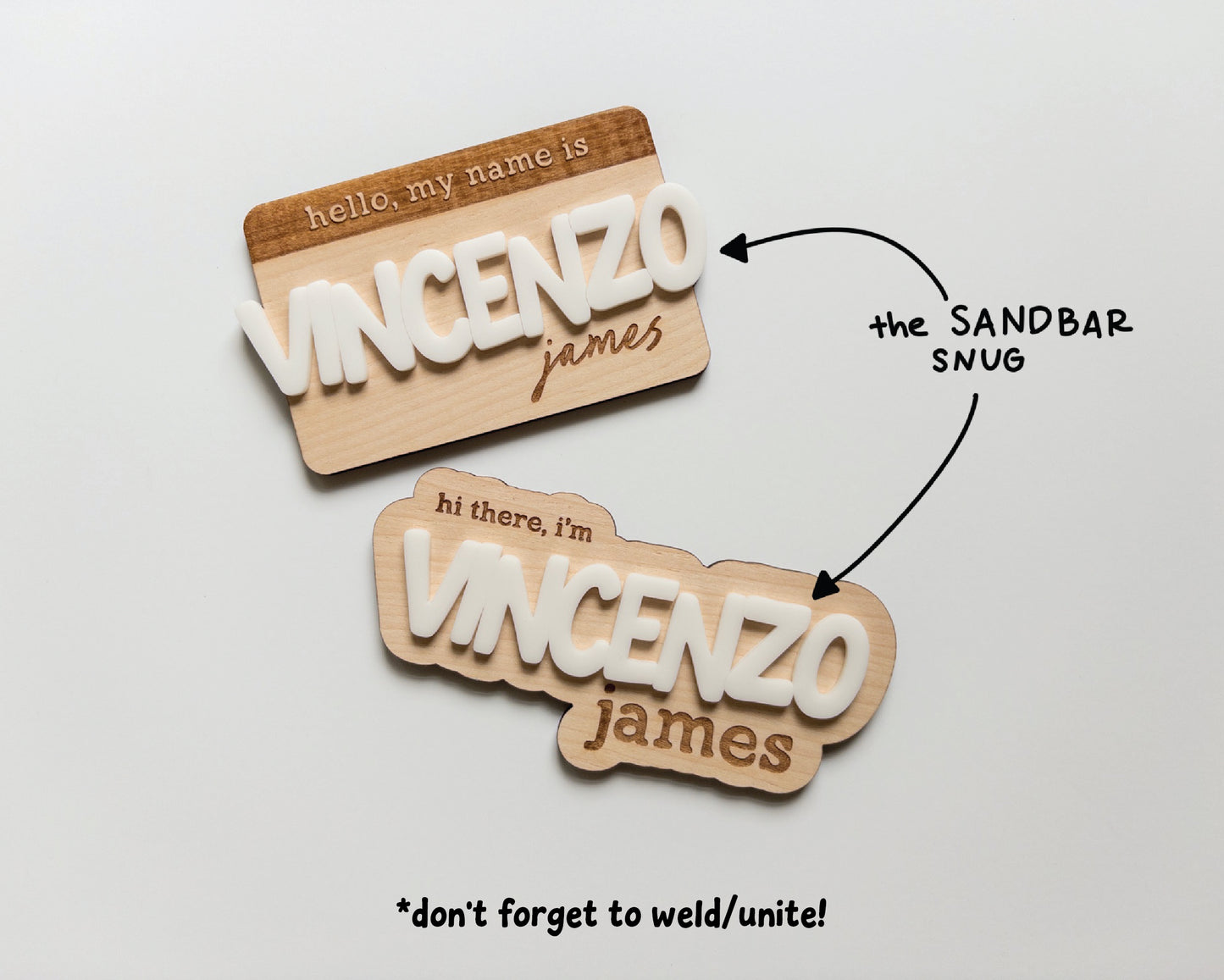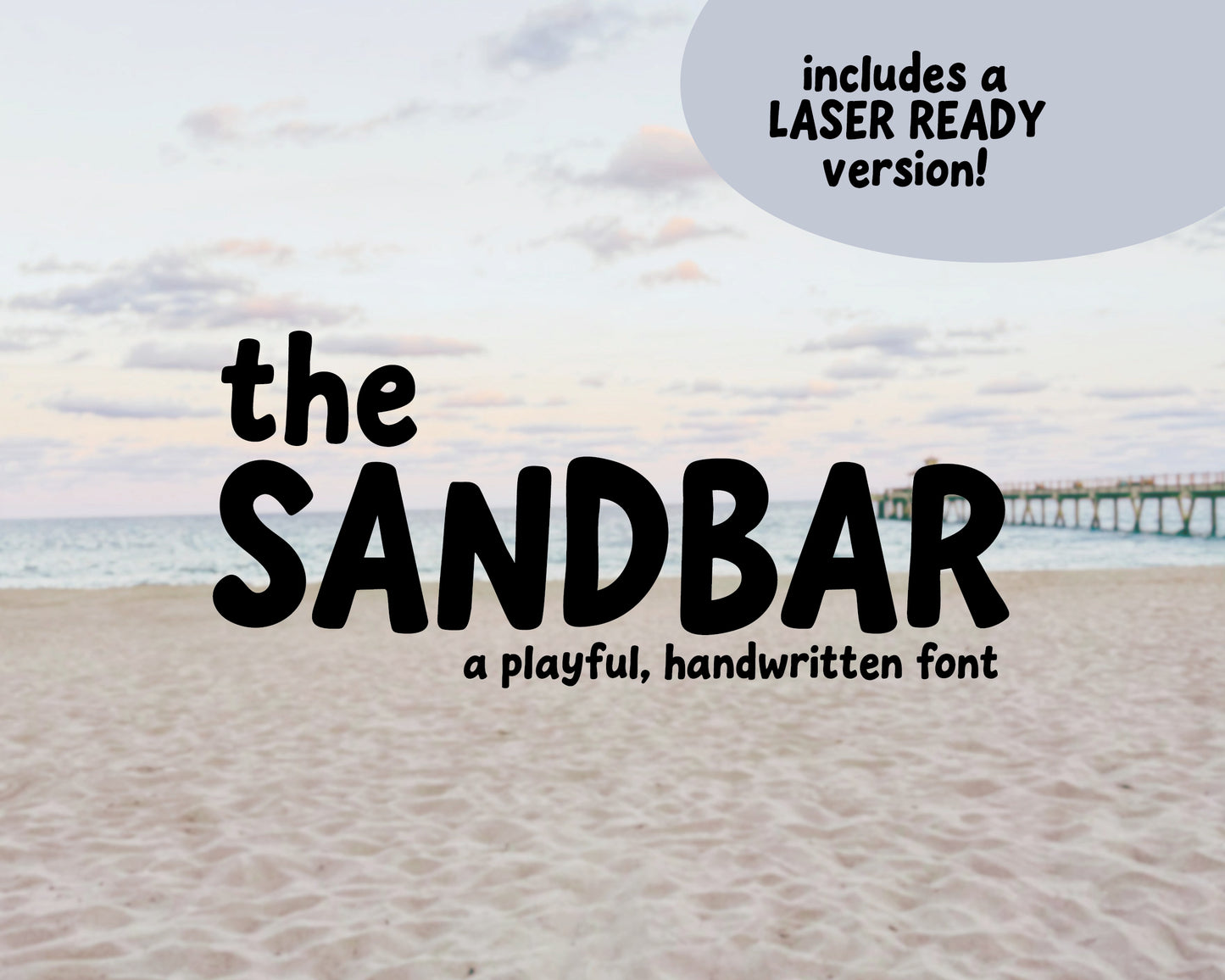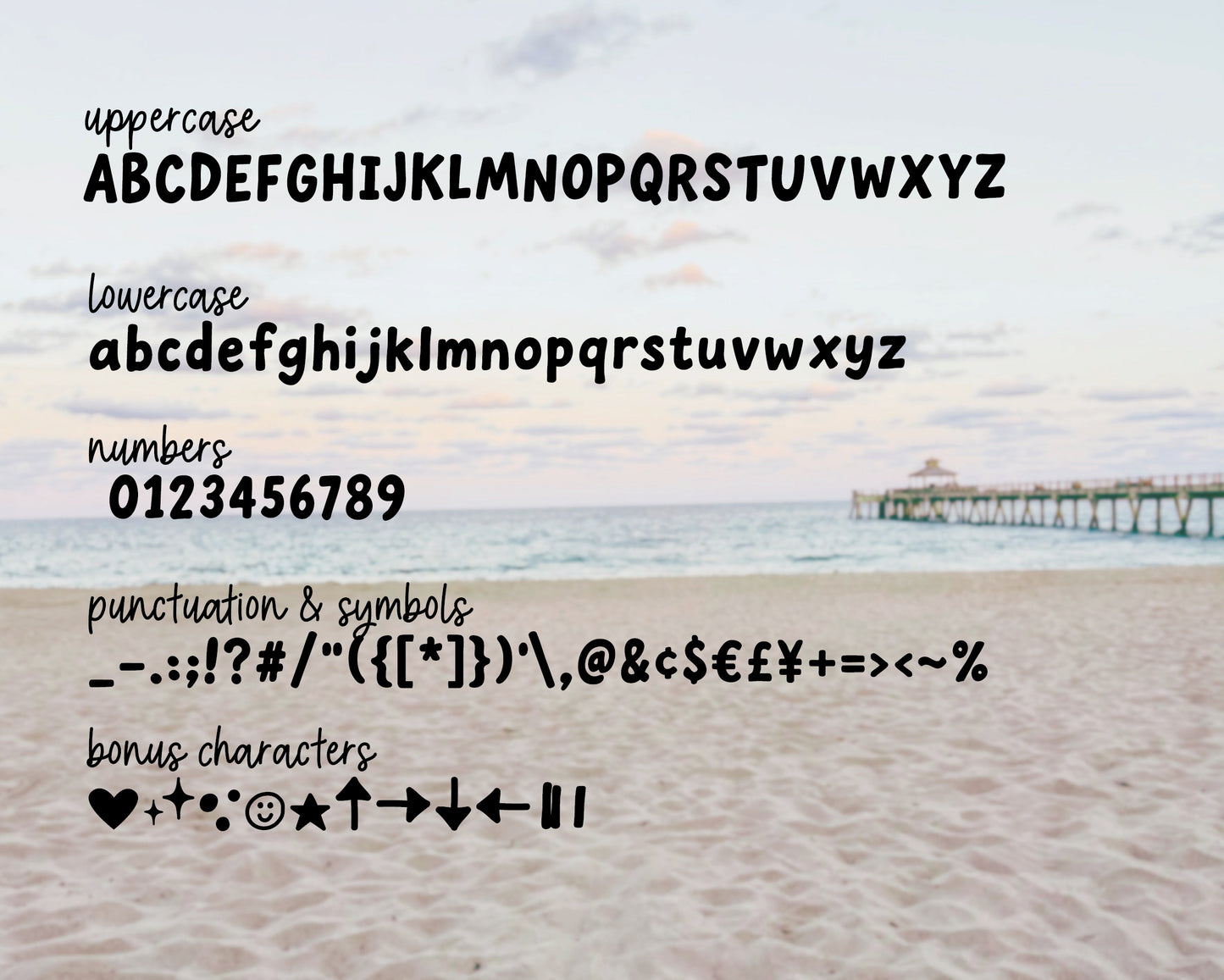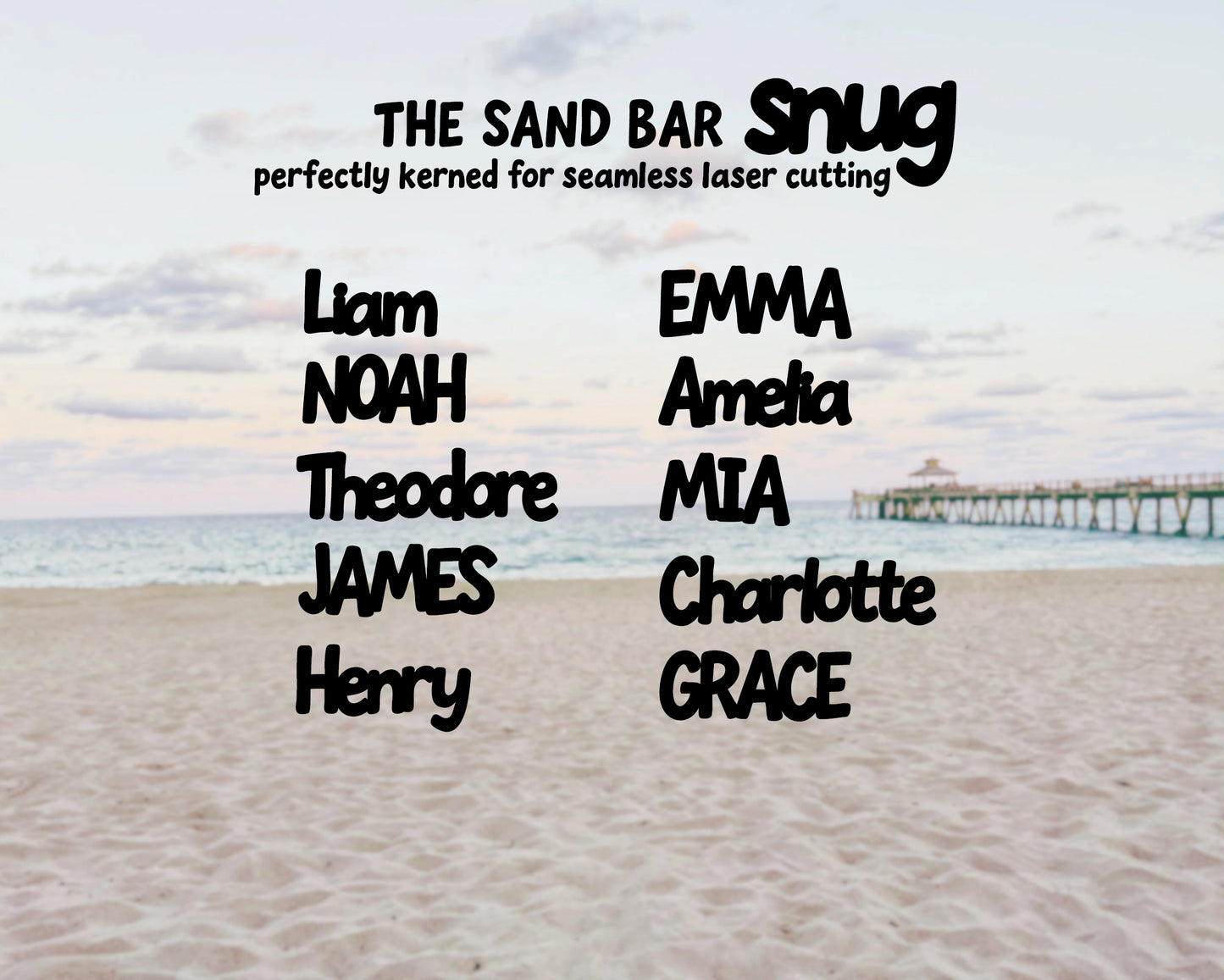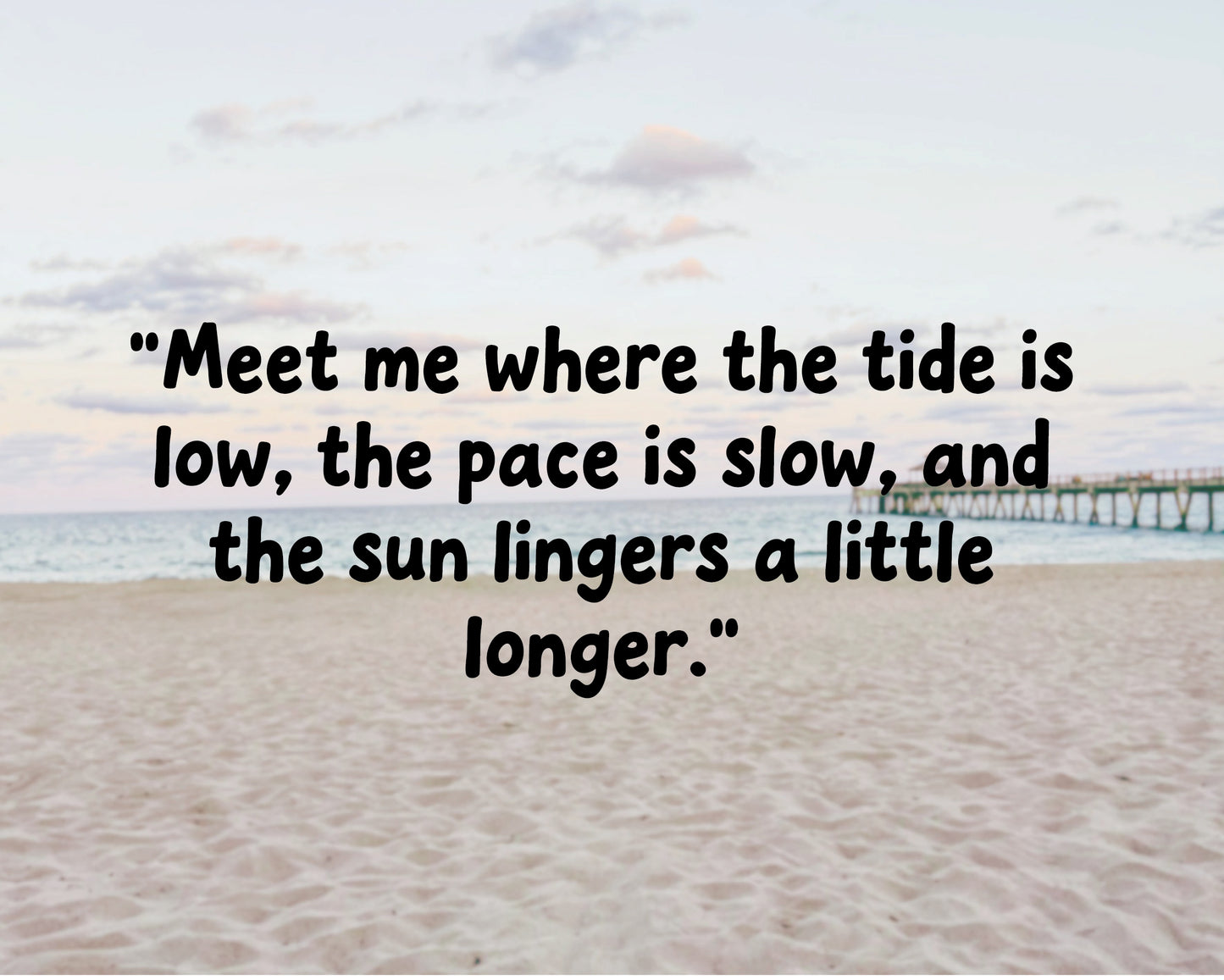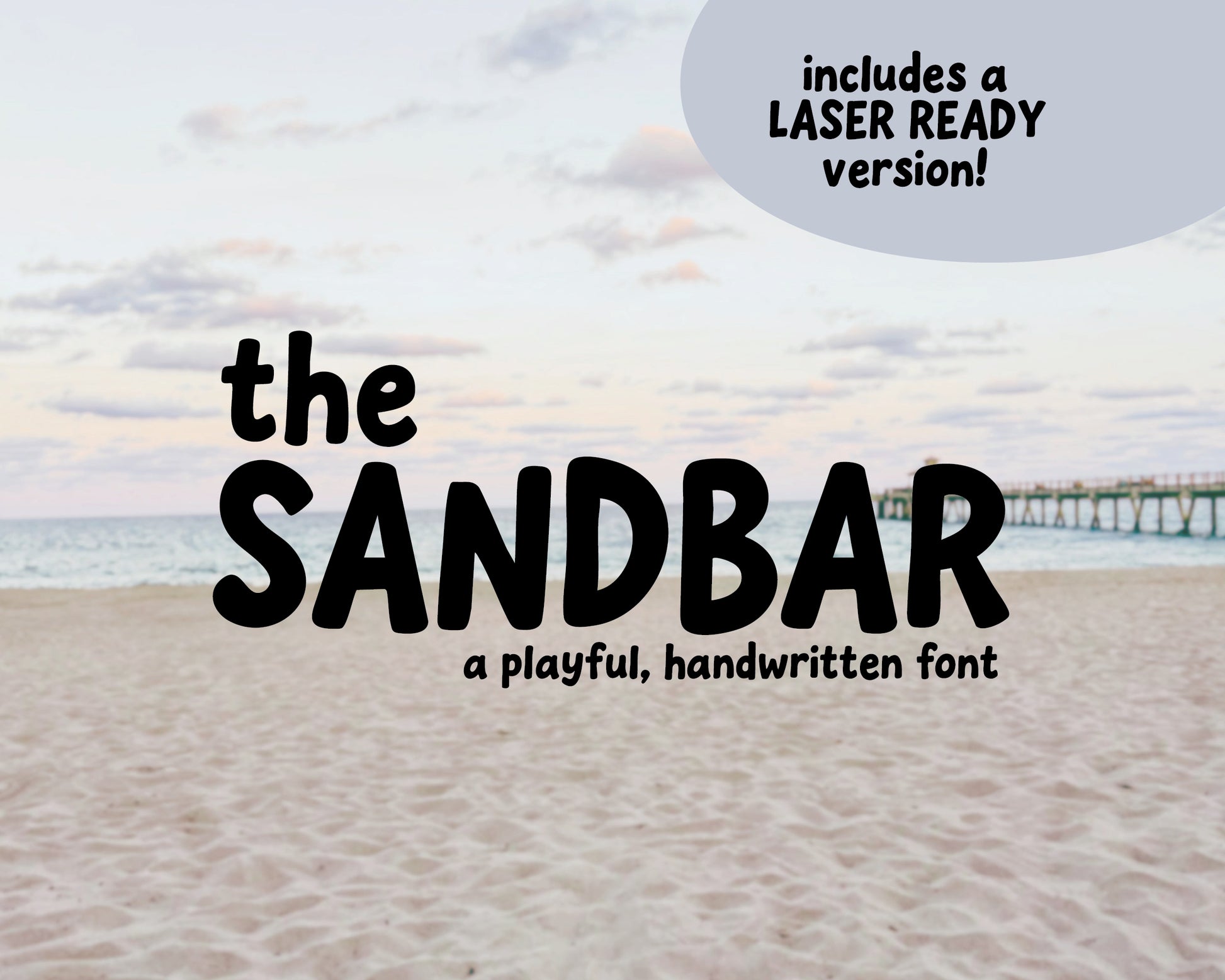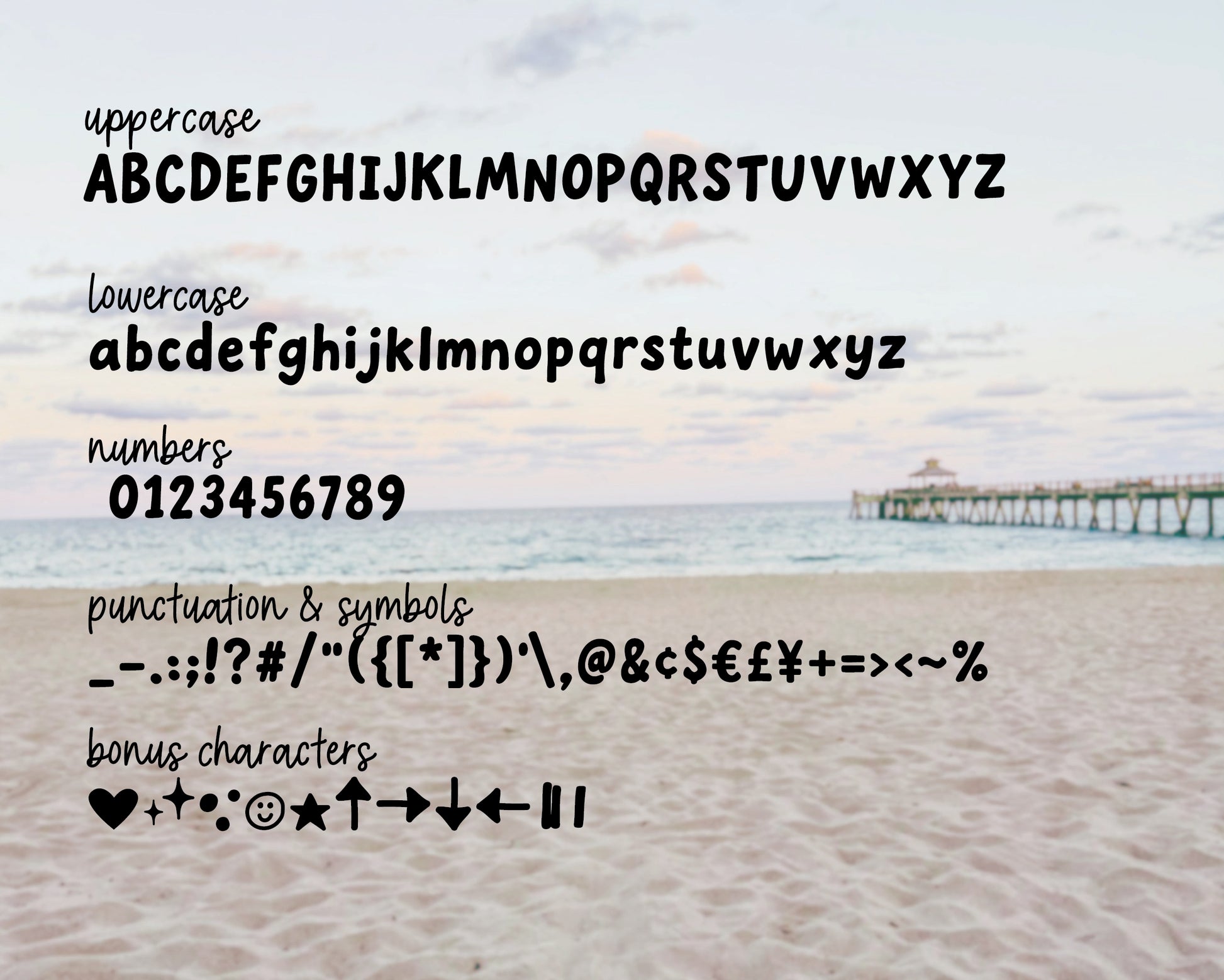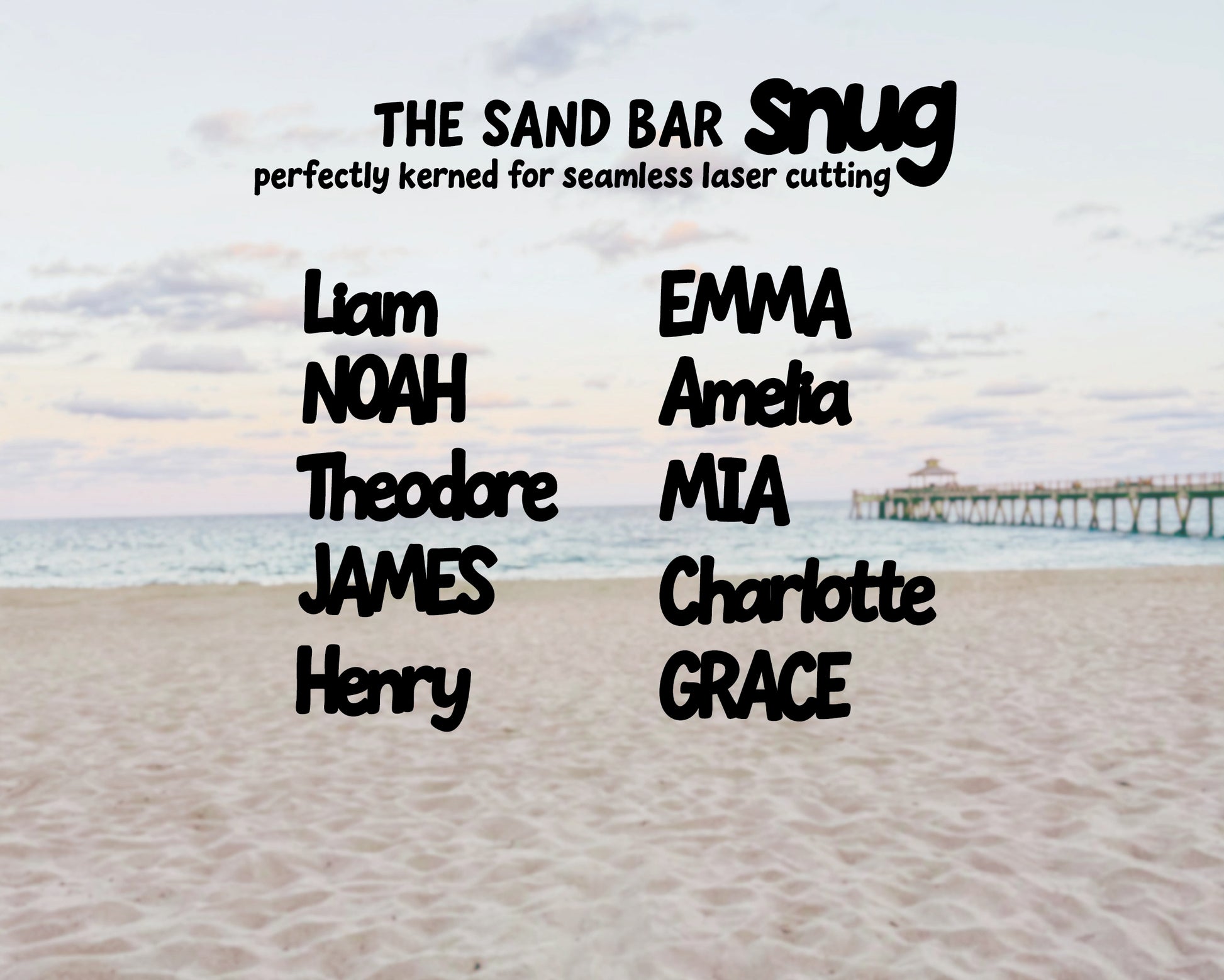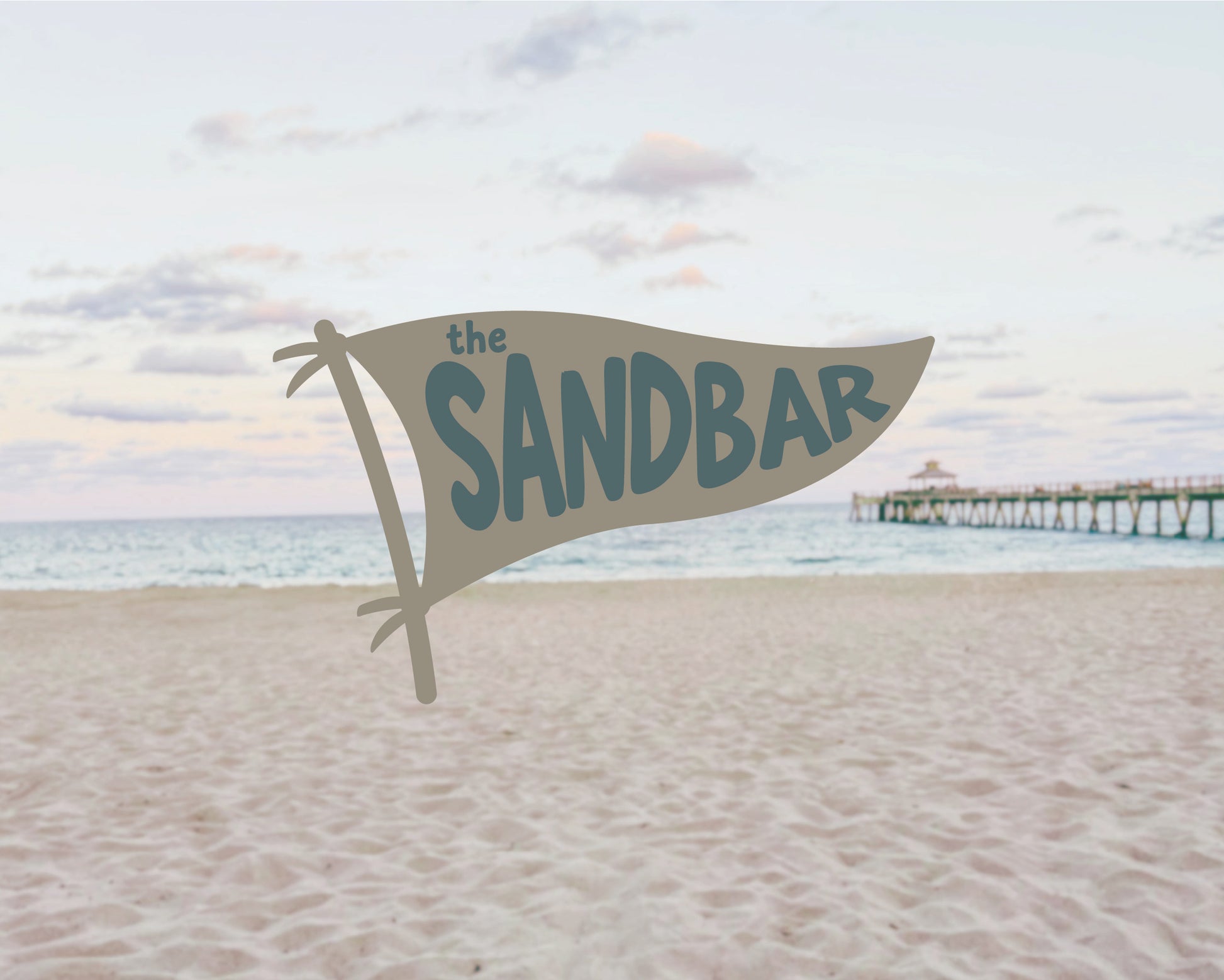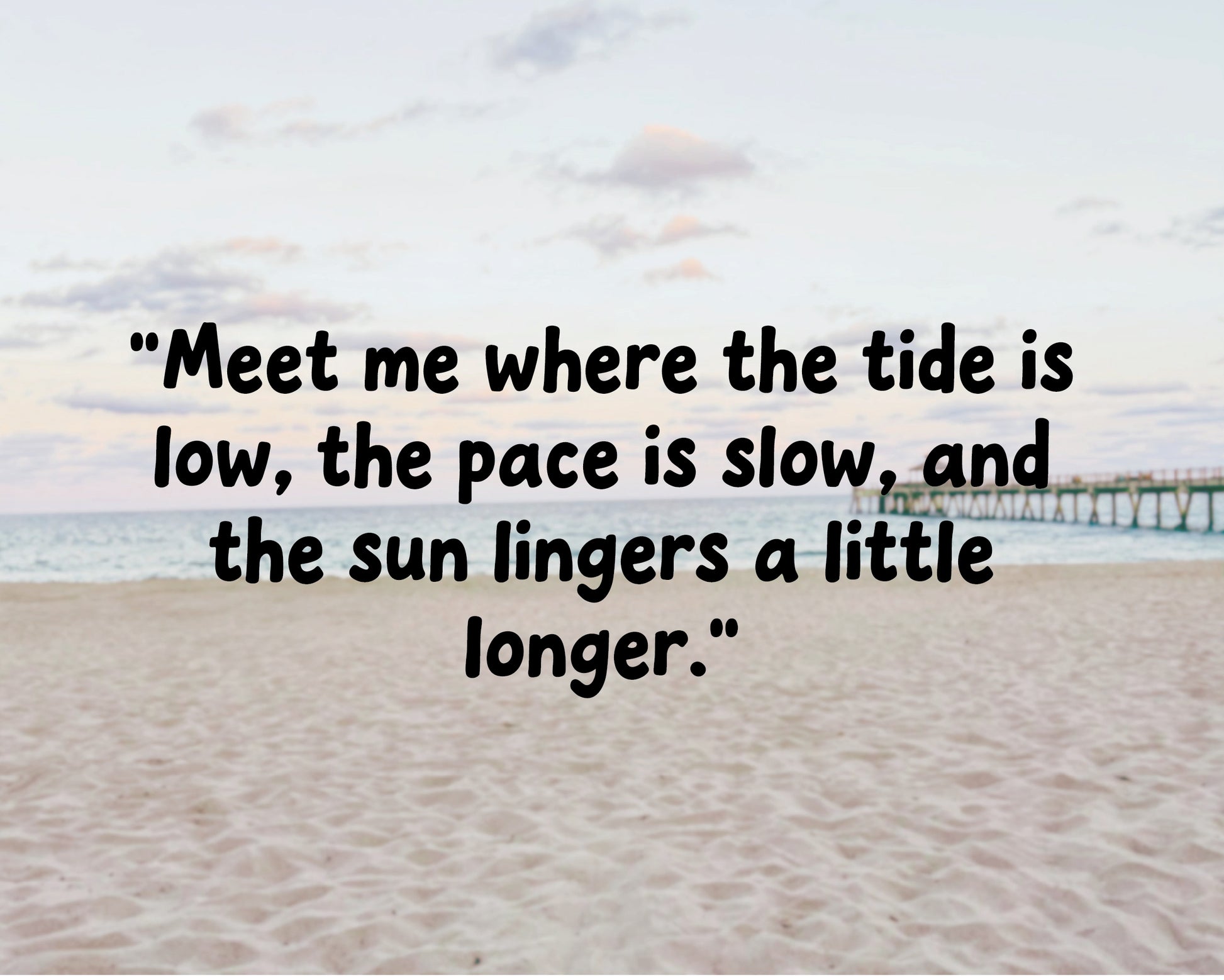
FONT - The Sandbar - hand lettered sans serif
Introducing, The Sandbar, a playful, hand-lettered, sans-serif font.
Includes:
The Sandbar
- full uppercase + lowercase characters, numbers
- symbols + punctuation
The Sandbar Snug
- full uppercase + lowercase characters, numbers
- symbols + punctuation